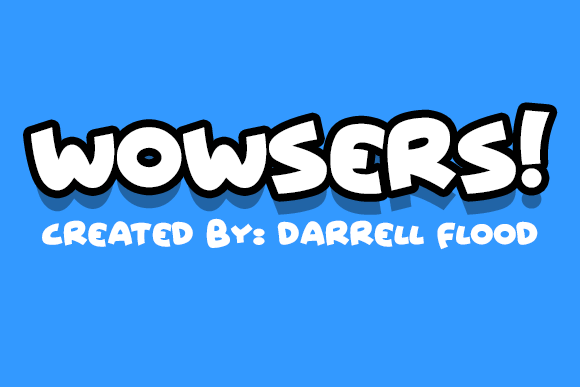
Wowsers Font
About Wowsers Font
Wowsers! A happy, playful, type created by Darrell Flood. This font is great for kids designs and will for sure add some happiness to your projects.